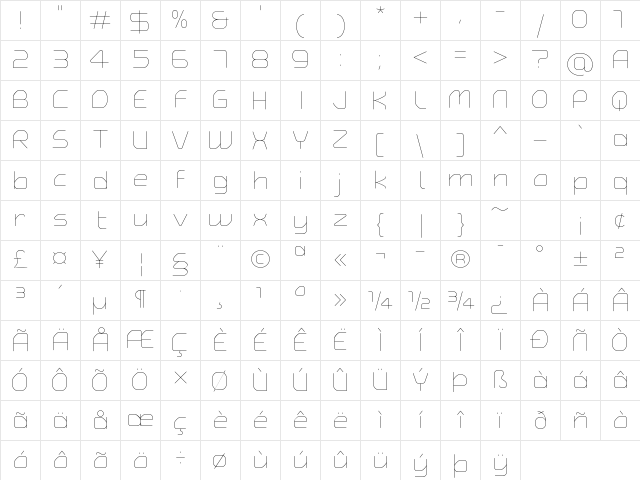
Typo Angular Rounded Thin Demo Regular
Foundry: StudioTypo
Designer: MEHMET ABACI
Typo Angular Rounded Thin Demo Family
Complete Typo Angular Rounded Thin Demo Regular glyph index. Displaying only characters natively supported by Typo Angular Rounded Thin Demo Regular font.
Design Context for Typo Angular Rounded Thin Demo
Typo Angular Rounded Thin Demo softens its letterforms with rounded terminals, giving it an approachable, friendly quality that works well in consumer-facing and digital contexts. Its slender proportions lend an understated elegance to any composition.
Font Pairing: Pairs well with a rounded or humanist sans for body copy, maintaining the friendly tone without relying on Typo Angular Rounded Thin Demo to carry extended reading.
Pro Tip: Use Typo Angular Rounded Thin Demo for UI elements, app interfaces, and anywhere a friendly, approachable tone needs to be maintained without sacrificing clarity.